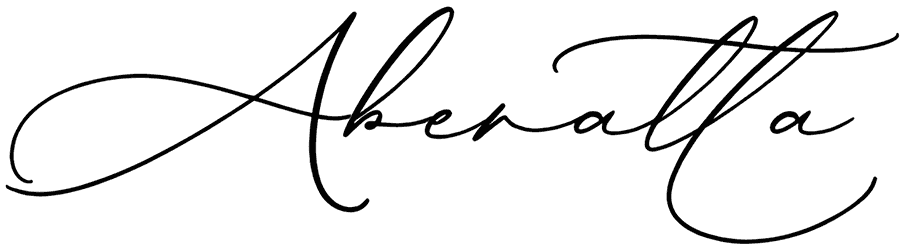
Aberatta Font
Whether your fantasy creation is about a magical kingdom or a human realm, you can’t go wrong with Aberatta. This handwritten font is suitable for fantasy book covers, wedding cards, or mysterious writings that require foresight and focus, and readability is optional in them.